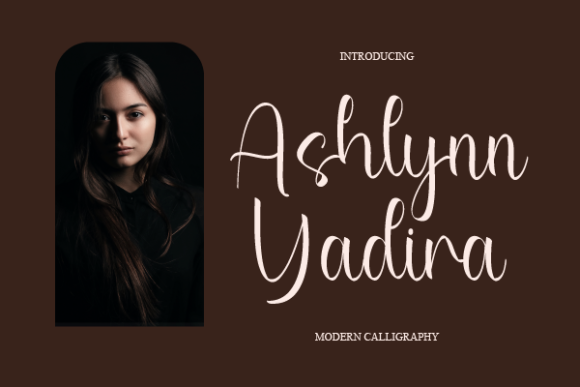
Introducing Ashlynn Yadira Font, the epitome of elegance and sophistication in the world of script fonts. Crafted by the masterful hands of Zero Type, this exquisite typeface embodies the essence of romance and timeless beauty.
Step into a realm where words dance gracefully across the page, leaving an enchanting trail of allure. Ashlynn Yadira's flowing curves and delicate swirls create an irresistible allure that will captivate your audience. Whether you're designing a captivating wedding album, crafting a luxurious brand identity, or adding a touch of whimsy to your social media feed, this font is your muse.
With Ashlynn Yadira, your words will blossom into a symphony of visual delight. Imagine the covers of glossy magazines adorned with its captivating strokes, or the packaging of premium products that exude an air of exclusivity. Its versatility knows no bounds, extending to invitations, posters, and any creative endeavor that craves a touch of enchantment.
Like a captivating melody that lingers in the heart, Ashlynn Yadira's charm will leave an indelible mark on your designs. Its intricate details and harmonious flow will elevate your creations beyond the ordinary, transforming them into masterpieces that evoke emotions and ignite imaginations.